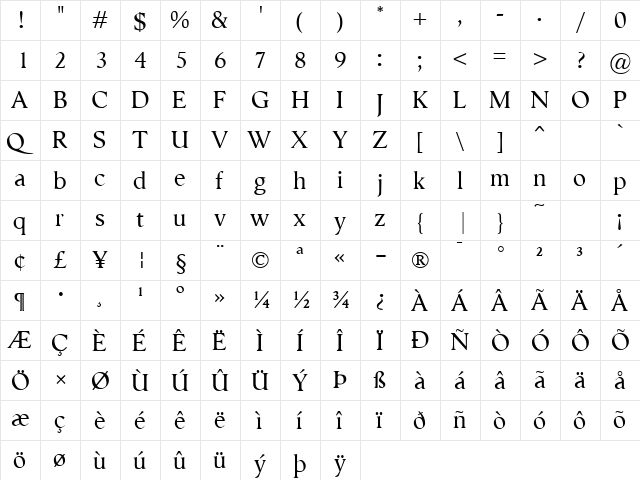
Semper Regular Font Preview
Semper Regular
Semper Regular Font Details
Design Context for Semper Typeface
Semper is a composed and adaptable typeface that performs quietly and consistently across a wide range of design contexts.